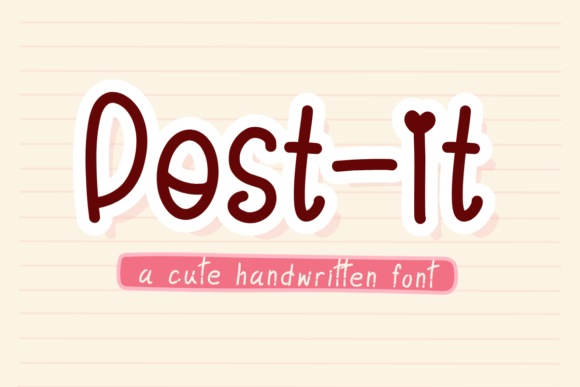
In the realm of creative expression, where words dance and ideas take flight, there lies a font that captures the essence of charm and playfulness - Post-it Font. As a script font family, Post-it exudes a touch of whimsy, a sprinkle of nostalgia, and a whole lot of personality. Its intricate strokes and flowing curves evoke the charm of handwritten notes, inviting you to embark on a journey of creativity.
Crafted with care by the talented Khim08Studio, Post-it Font embodies the spirit of versatility. Whether you're a seasoned designer, a budding artist, or simply someone who loves to add a touch of charm to their projects, Post-it has something for everyone. Its wide range of applications spans from heartfelt greeting cards to playful posters, from whimsical invitations to eye-catching logos. Unleash your imagination and let Post-it transform your designs into captivating masterpieces.
Step into the world of Post-it Font and discover a treasure trove of creative possibilities. Its playful nature makes it an ideal companion for children's projects, adding a touch of fun and magic to their creations. Teachers will find Post-it to be an invaluable tool, helping them craft engaging and visually appealing materials that capture students' attention. And for those who love to create personalized greeting cards, invitations, or simply want to add a personal touch to their correspondence, Post-it is the perfect choice.
With Post-it Font, you're not just downloading a font; you're inviting a new dimension of creativity into your life. Let your imagination soar as you explore the endless possibilities that await you. Transform your designs into captivating works of art, leaving a lasting impression on your audience. Embrace the charm, the playfulness, and the versatility of Post-it Font, and embark on a creative journey like never before.